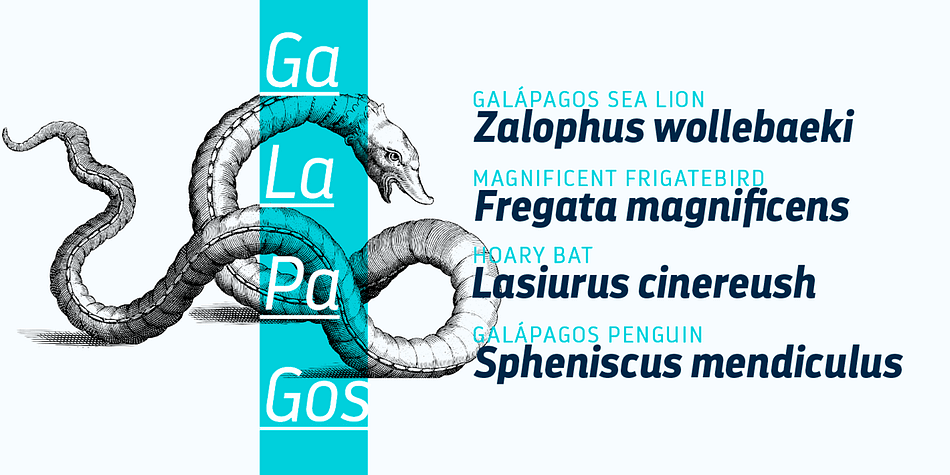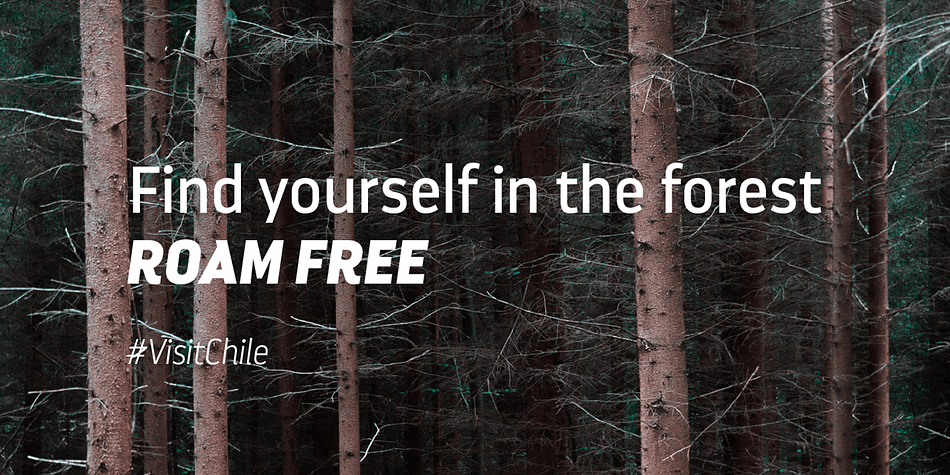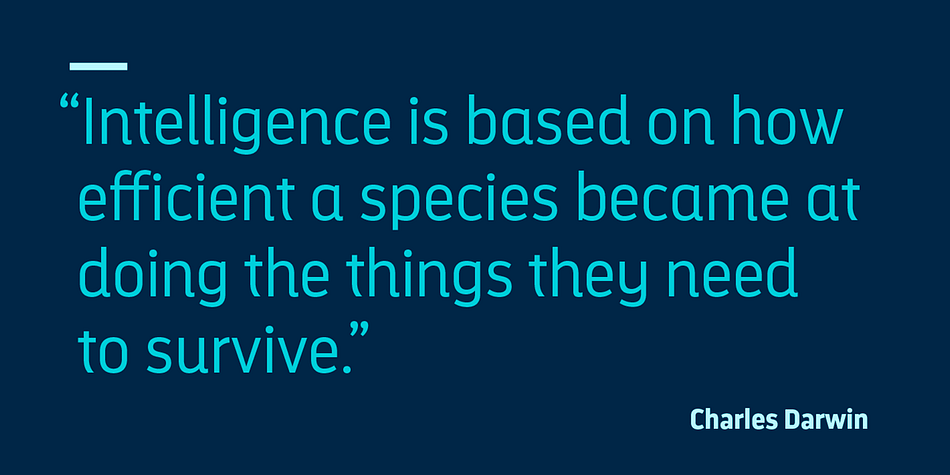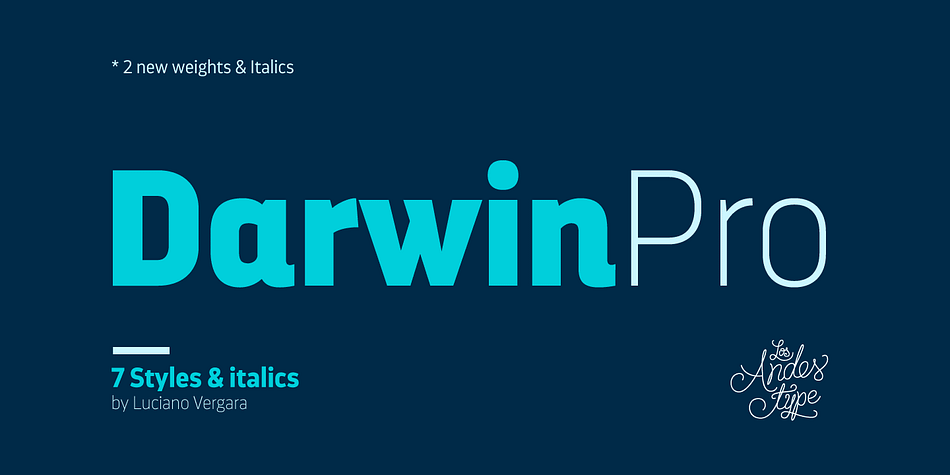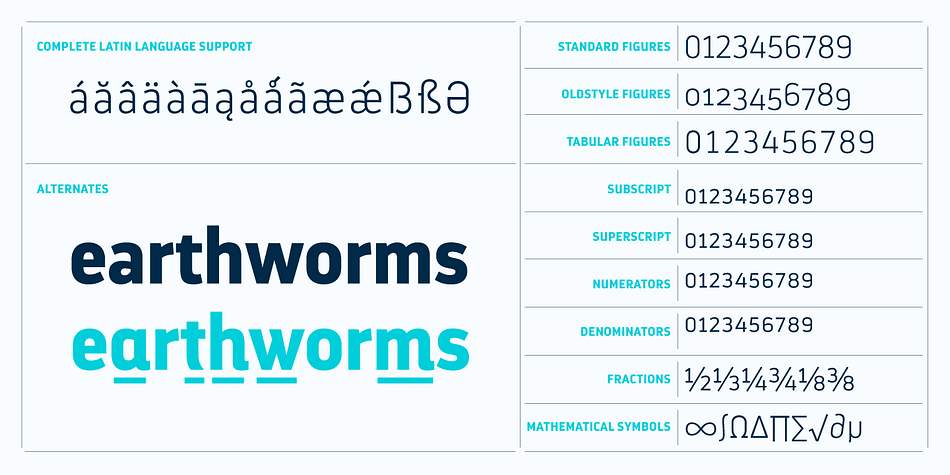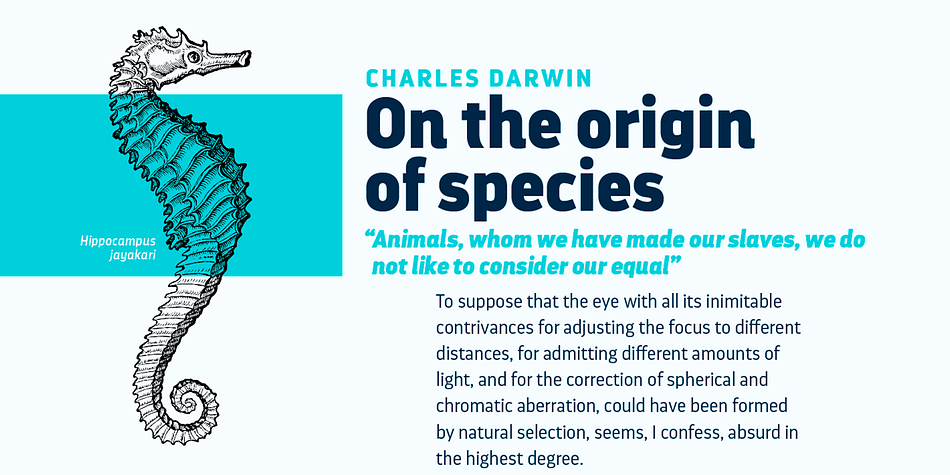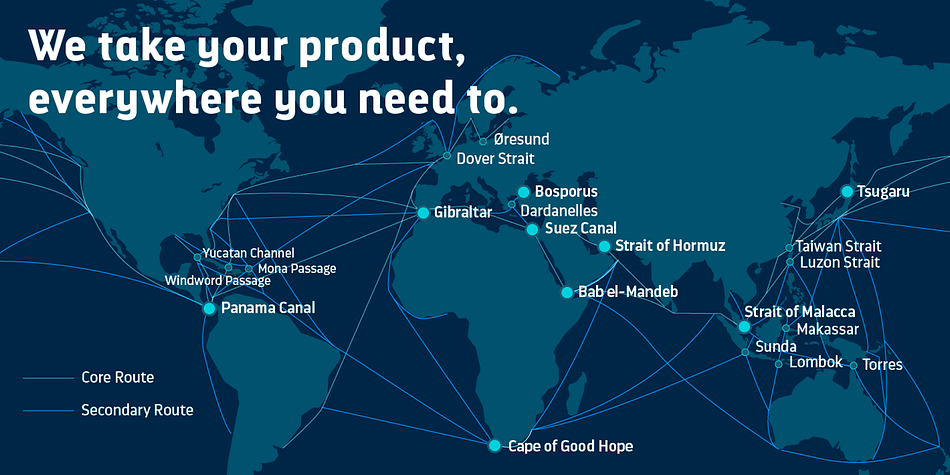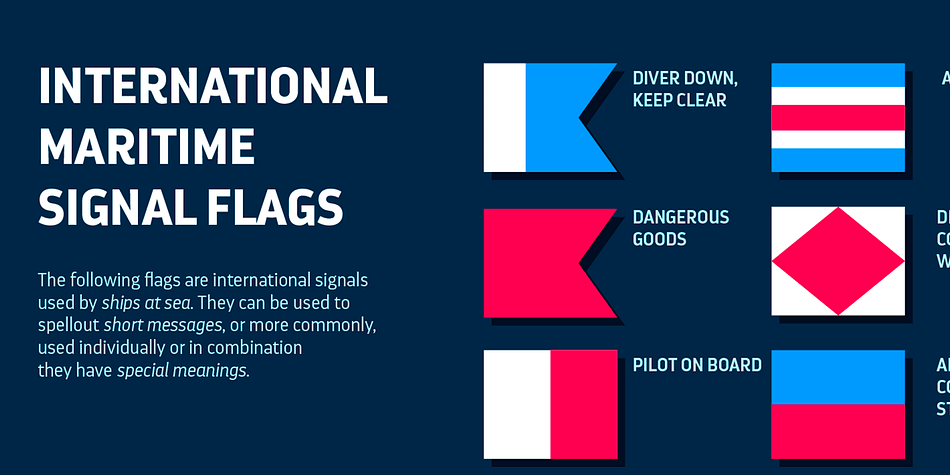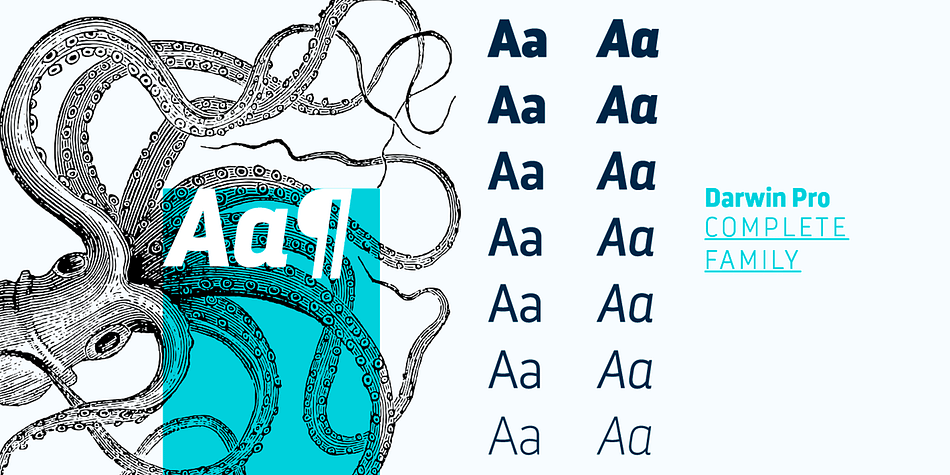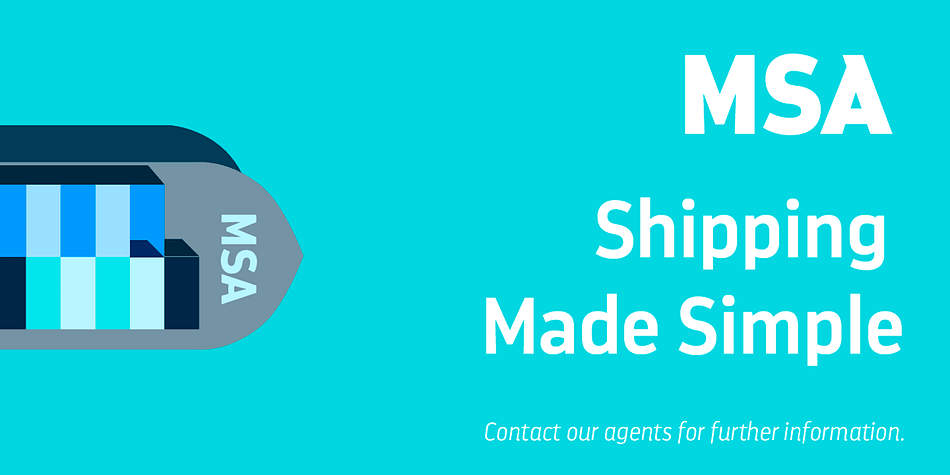
Designed by Luciano Vergara, Darwin Pro is a sans serif font family. This typeface has fourteen styles and was published by Los Andes Type.
Darwin Pro, the sequel to Darwin, is ready to leave port and start new adventures. The font was redrawn, the language support was extended and a new set of figures was added.
Darwin Pro comes in 7 weights plus italics and includes alternative characters available as an OpenType feature as well as oldstyle figures, numerators and denominators.